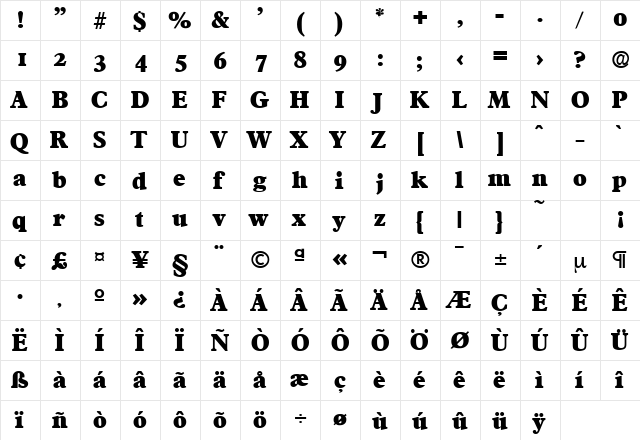
Francisco-Serial-Heavy Regular
Design Context for Francisco-Serial-Heavy Typeface
Francisco-Serial-Heavy takes a measured approach to typography — its balanced proportions and neutral character make it a reliable workhorse for both digital and print work.